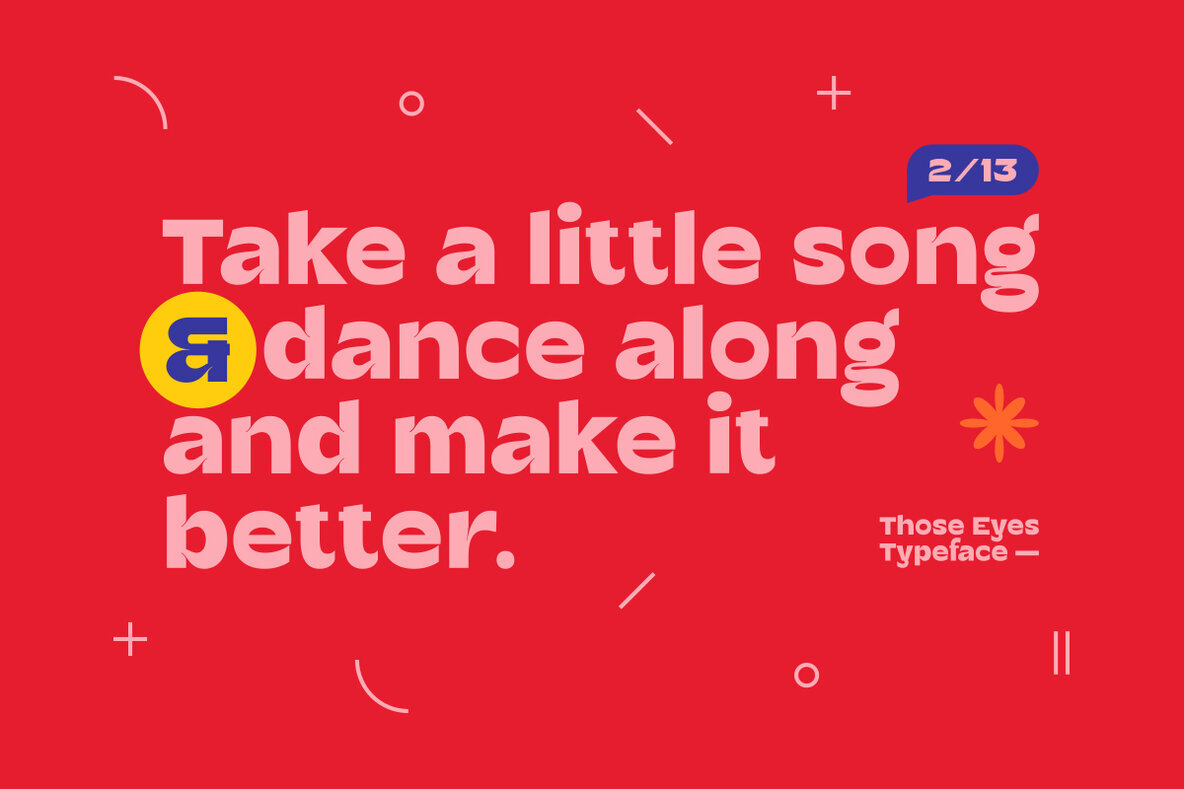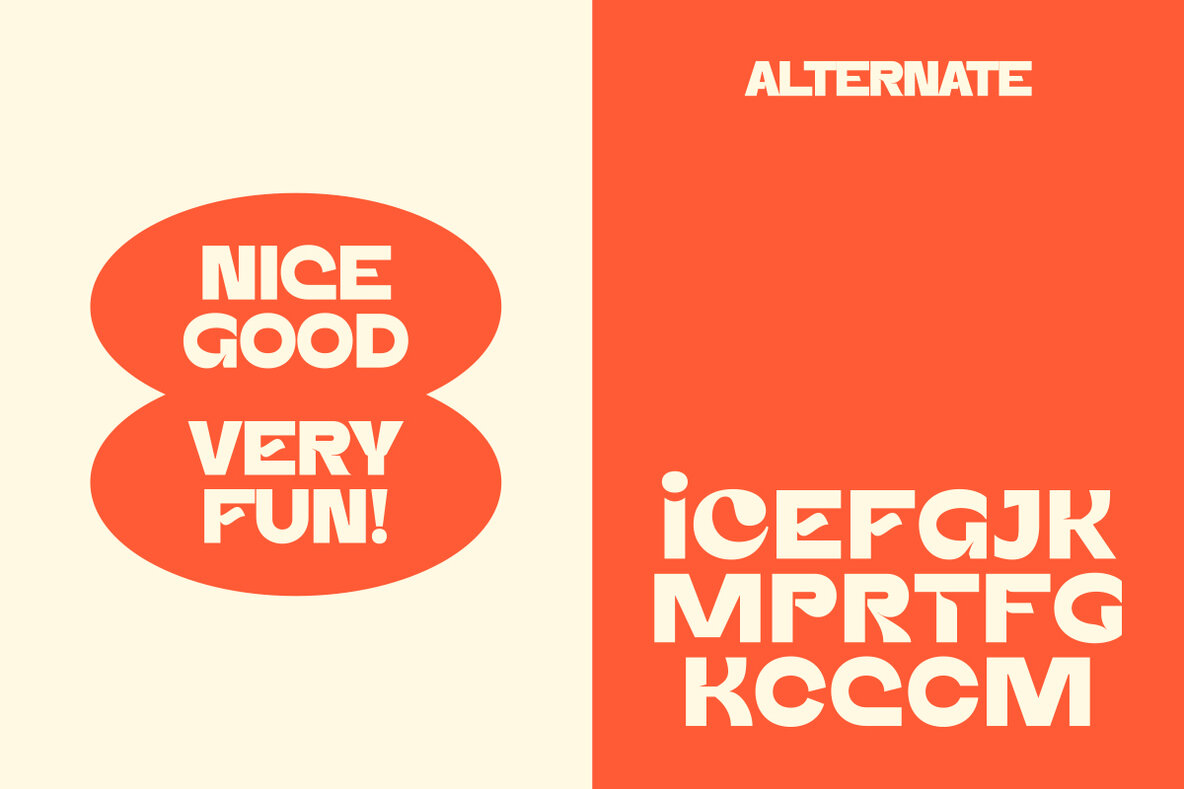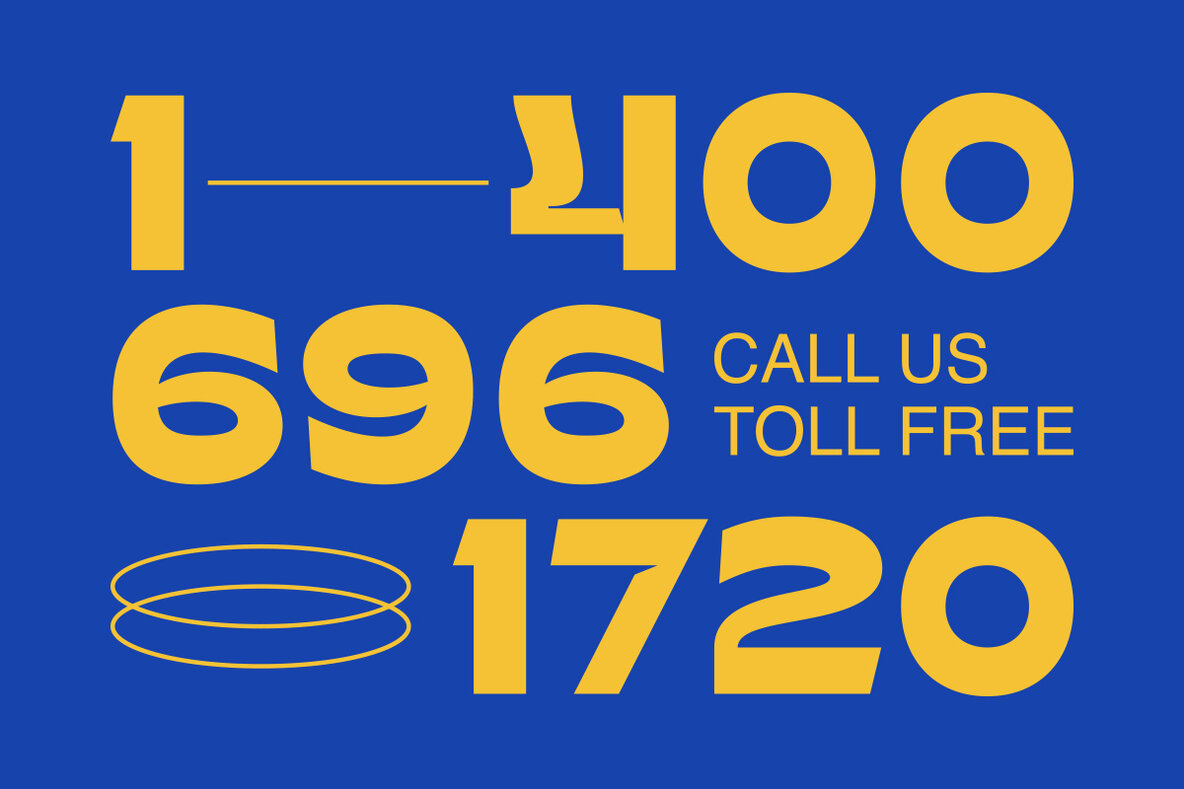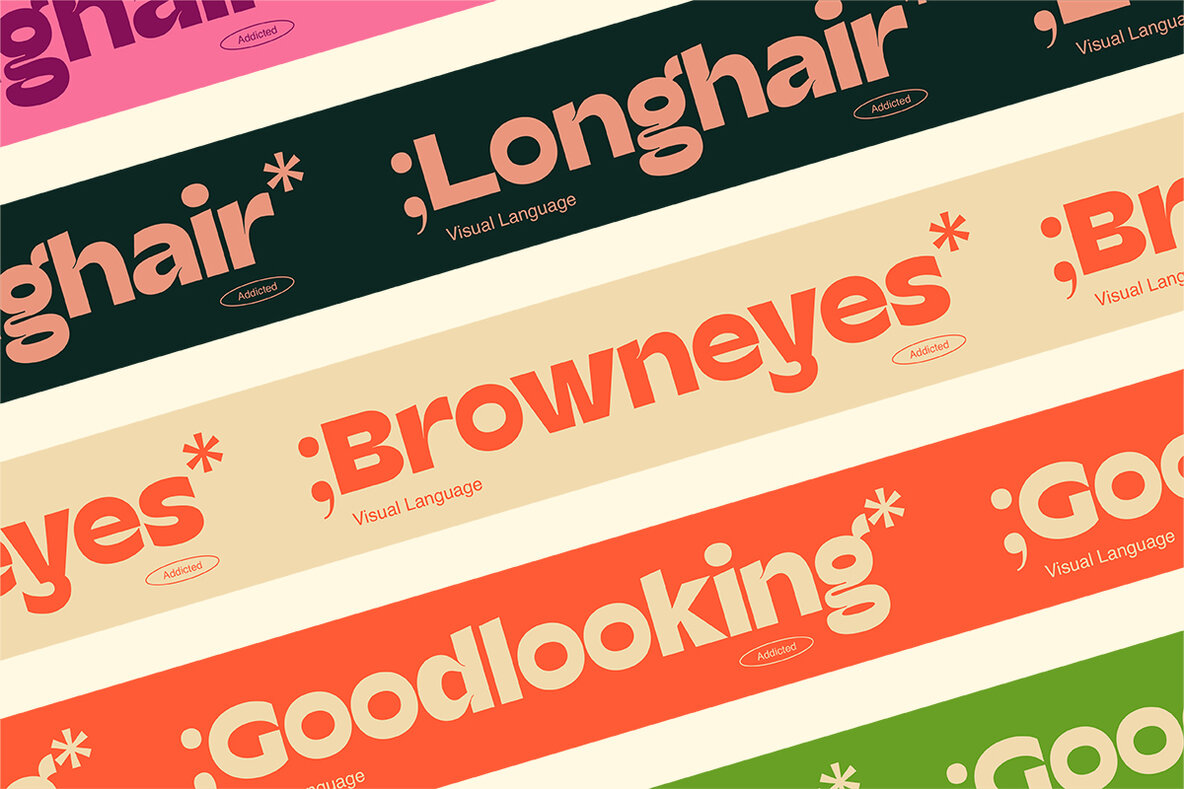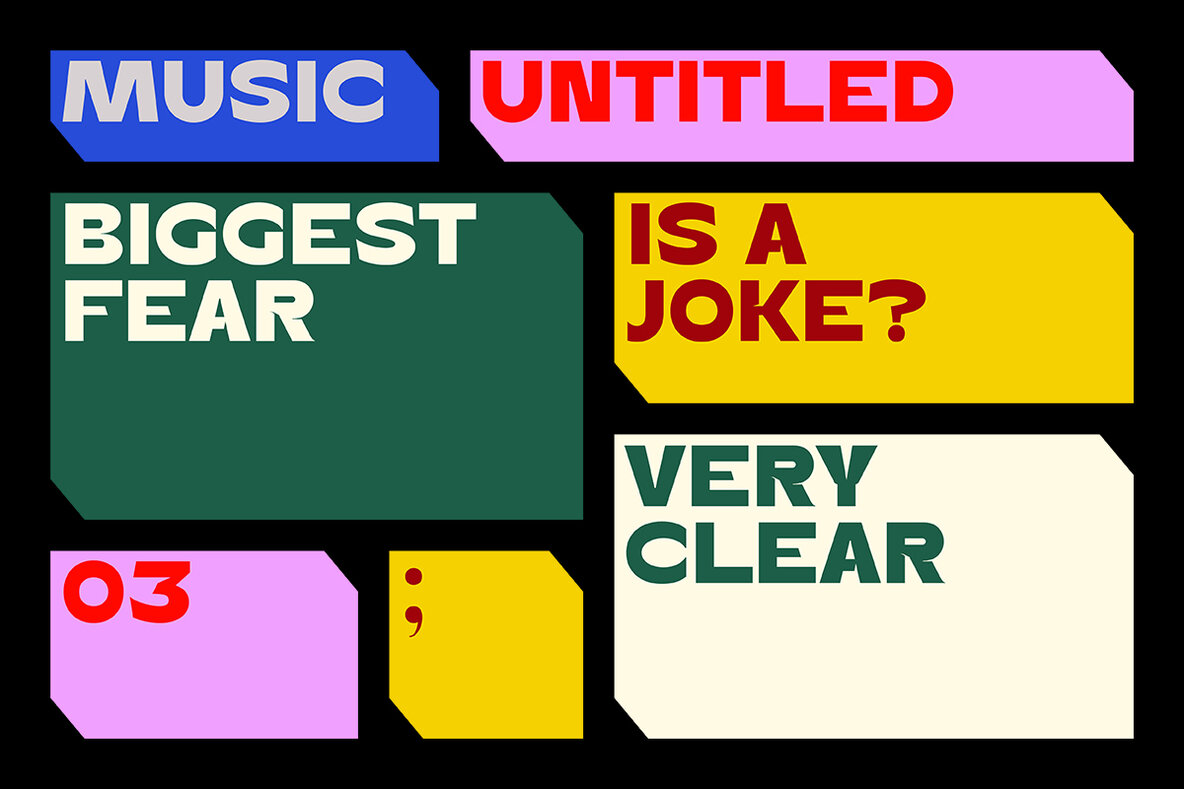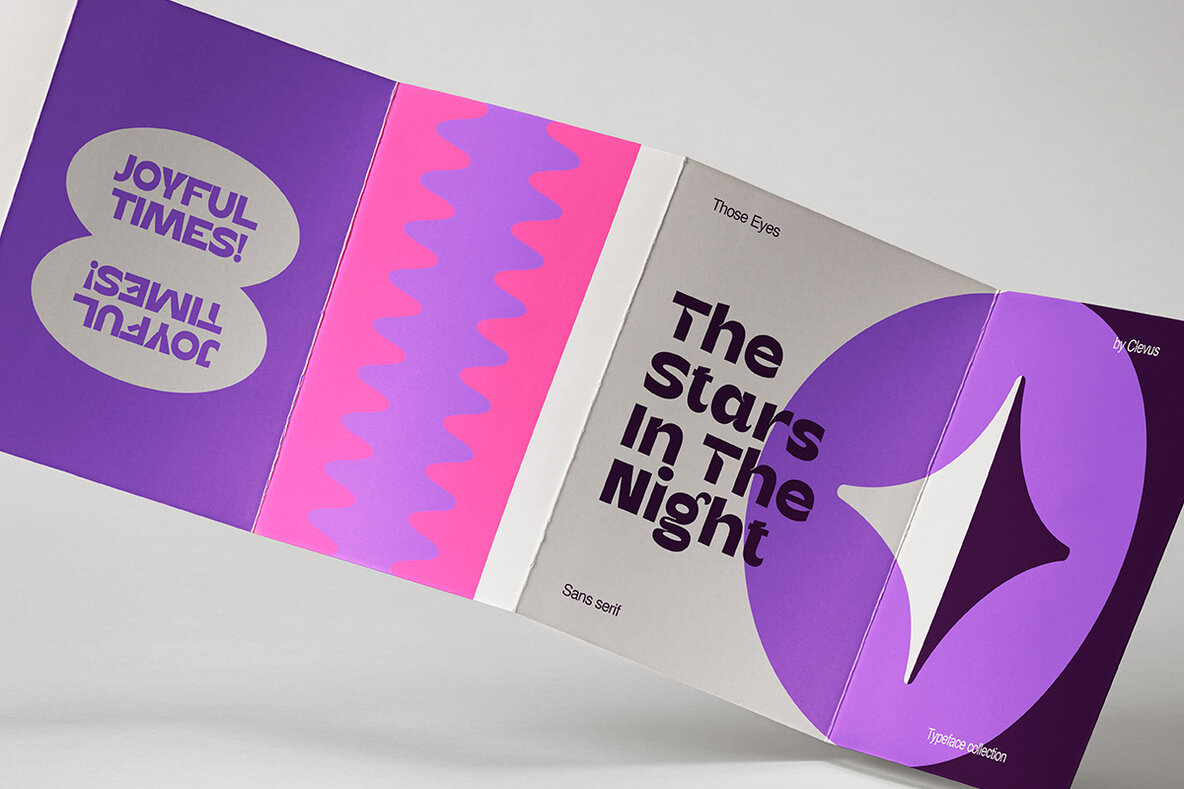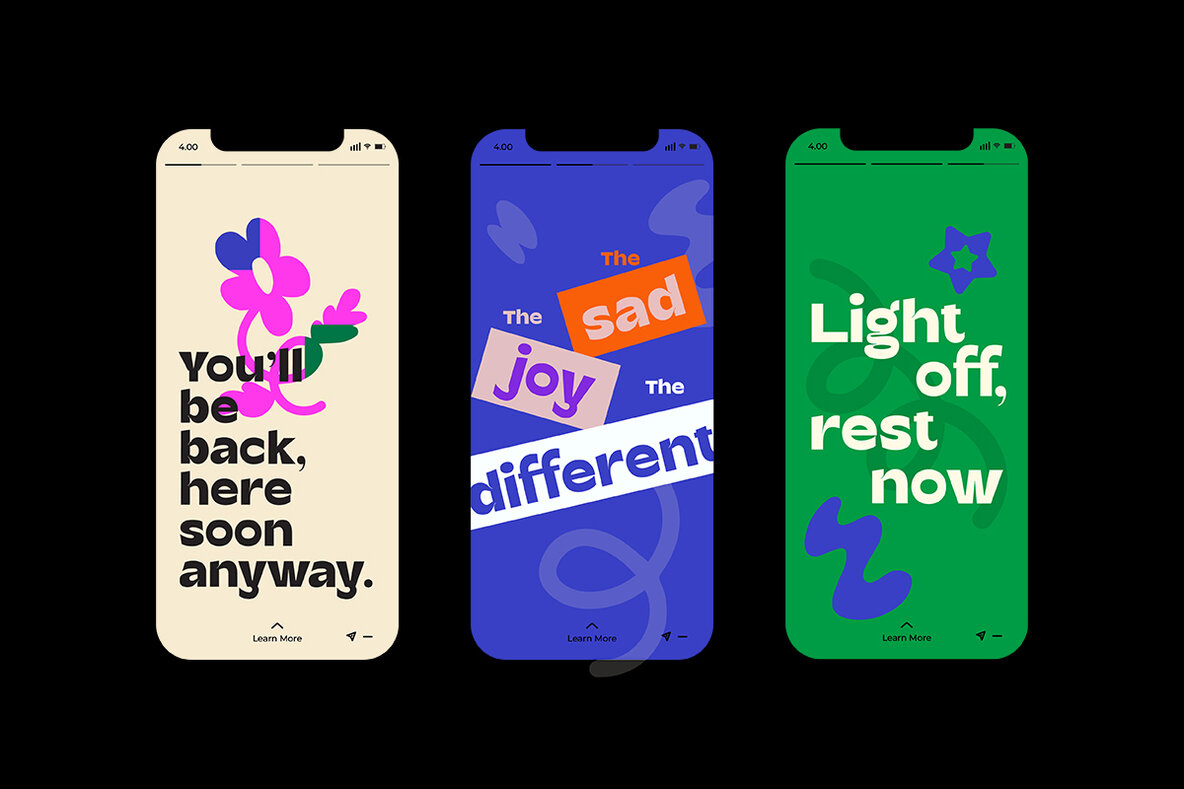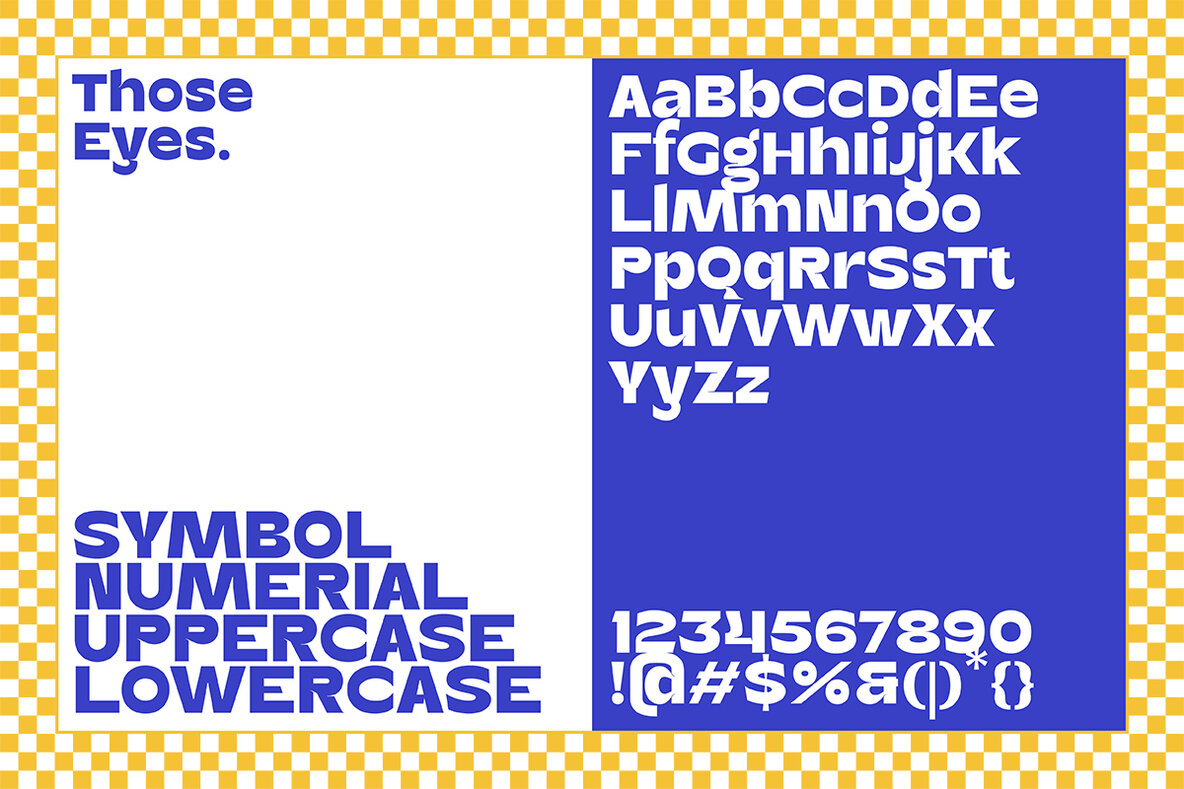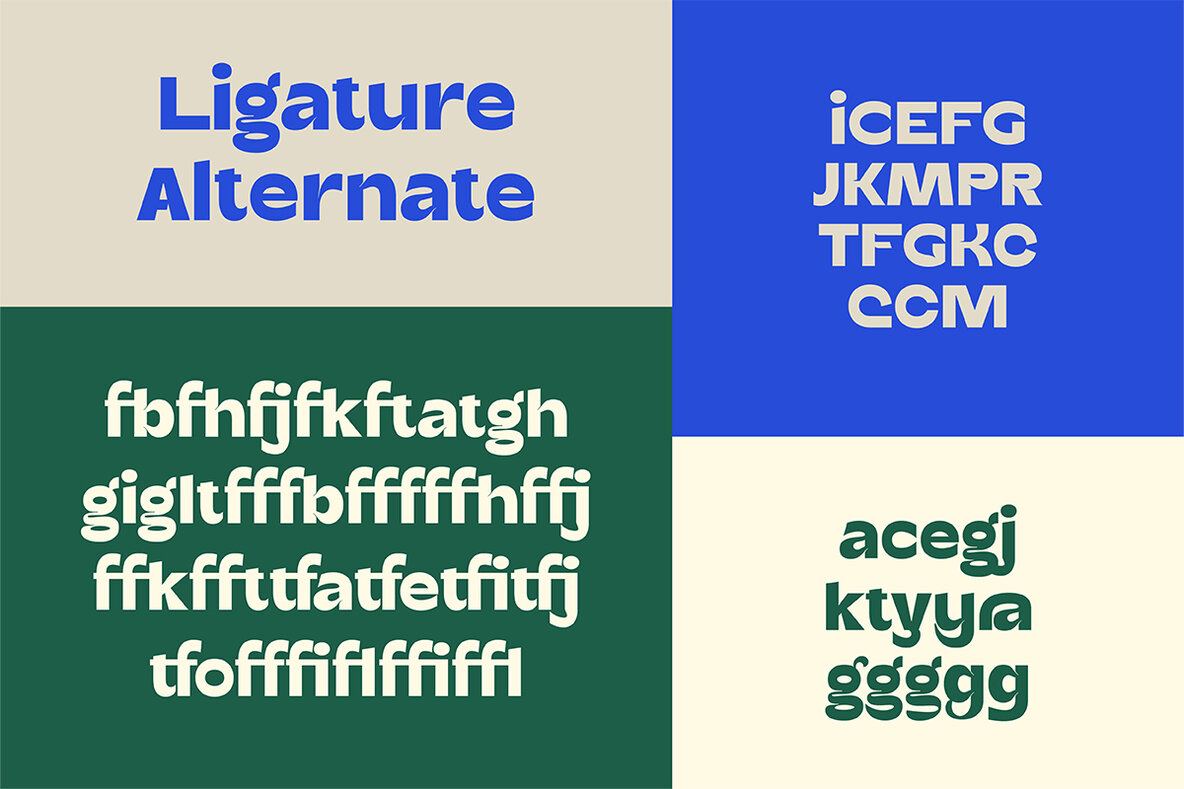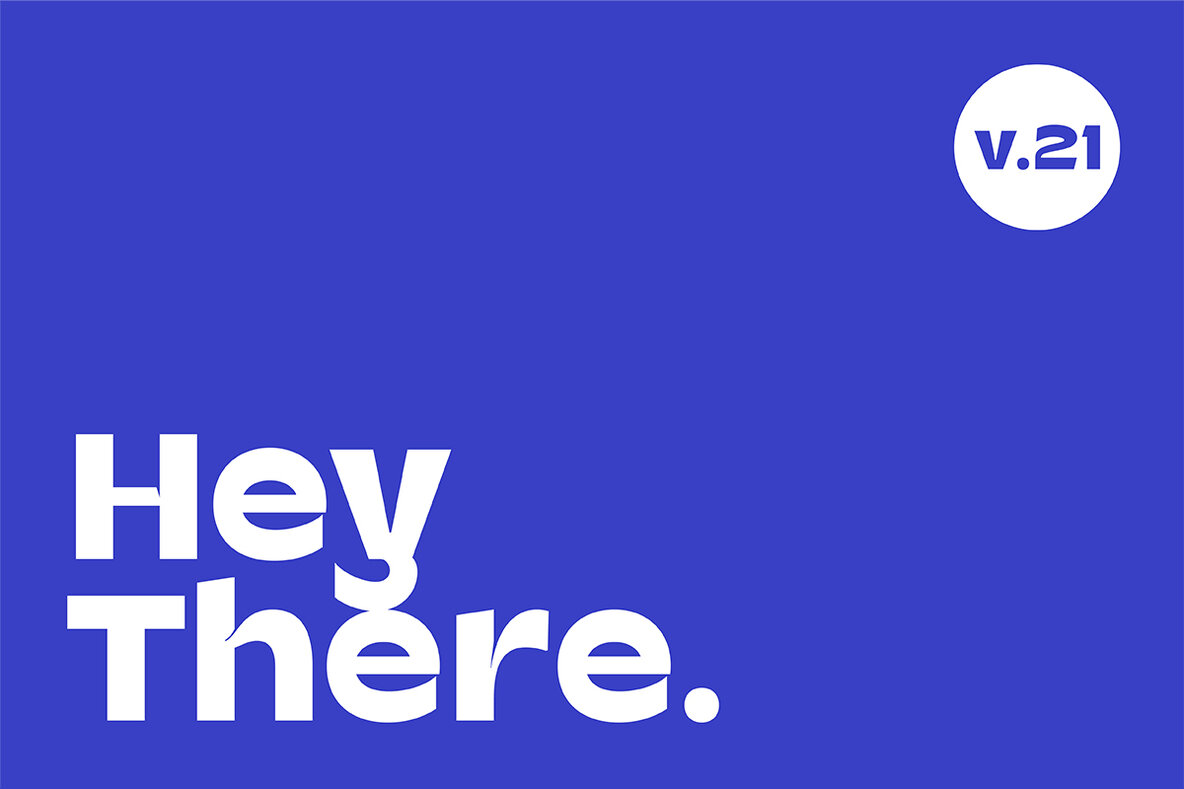
Those Eyes Font
Introducing "Those Eyes," a bold and playful sans serif typeface designed to make your projects stand out. With its chunky and funky style, this font is perfect for creating a lively and welcoming impression.Those Eyes: Chunky Sans Serif Typeface